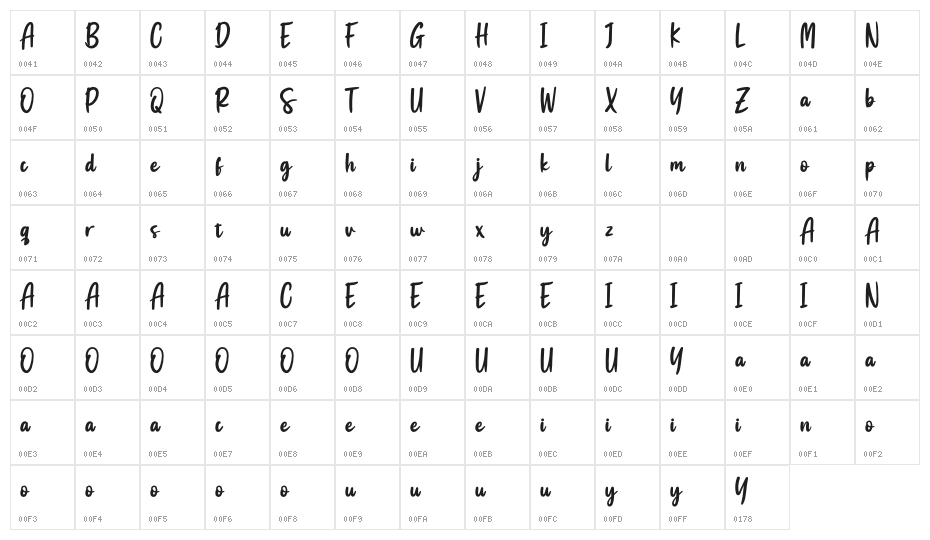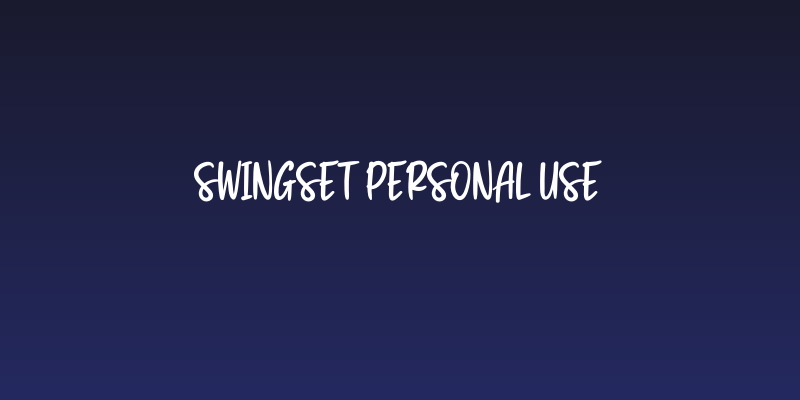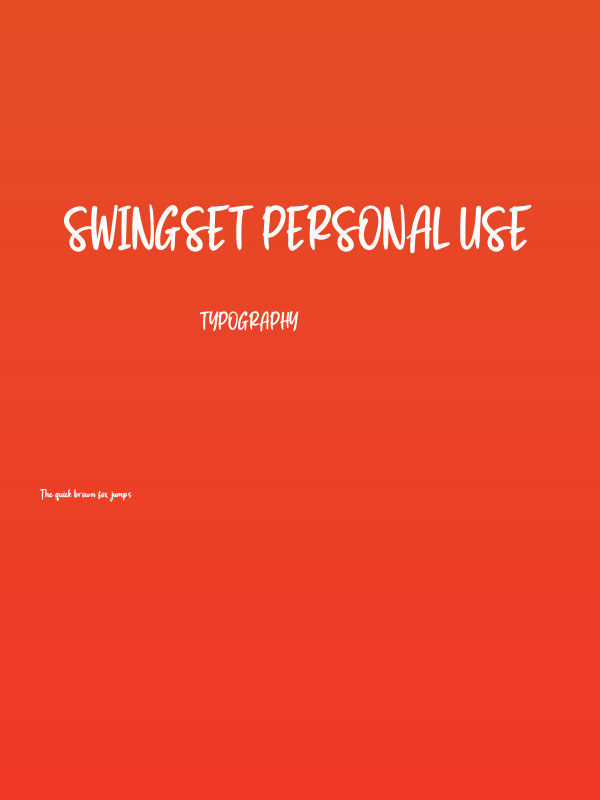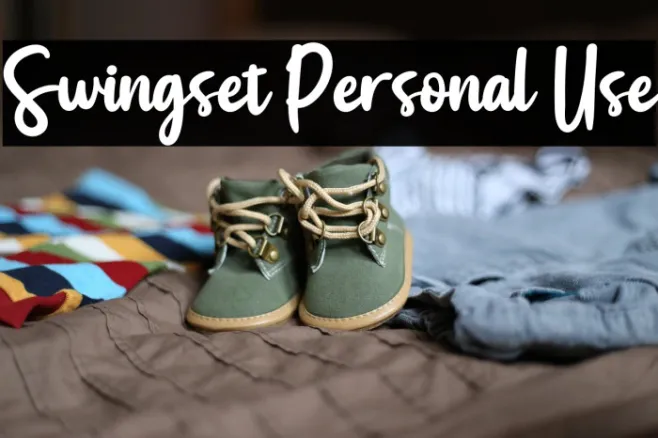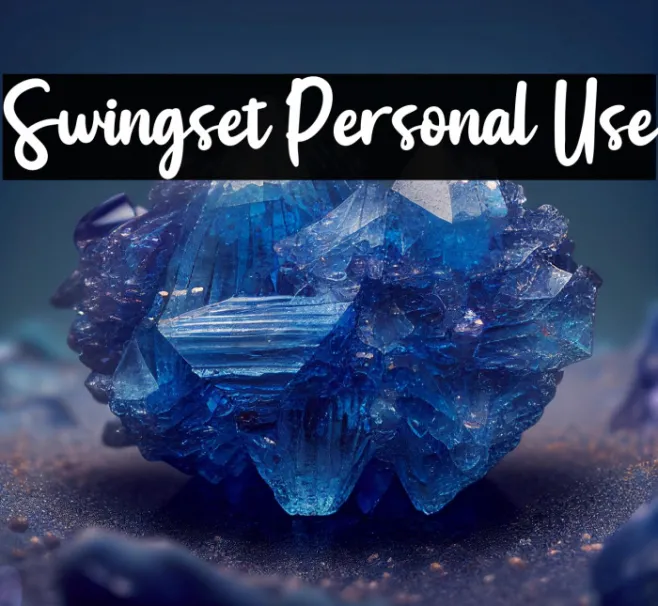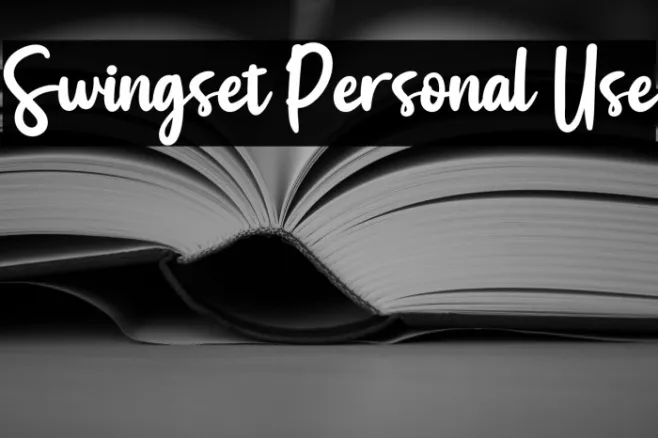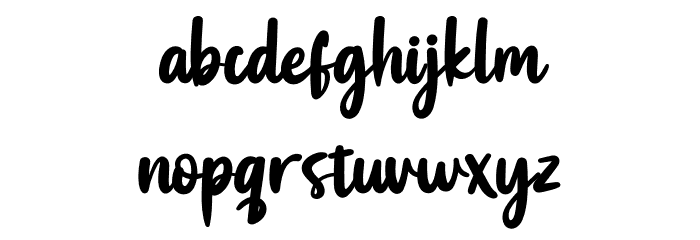
Swingset Personal Use Font
Swingset Personal Use Description
This font features a playful and casual handwritten style, characterized by its smooth, flowing curves and slightly irregular strokes. The uppercase letters are bold and dynamic, while the lowercase letters maintain a consistent rhythm, adding to the font's approachable and friendly appearance. The overall design is informal, making it suitable for projects that require a personal touch. The absence of sharp edges and the rounded forms contribute to its warm and inviting feel, ideal for creative and expressive applications.